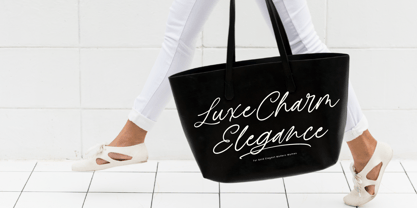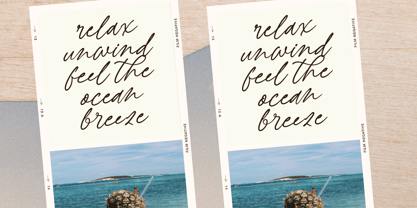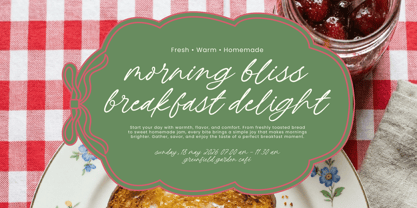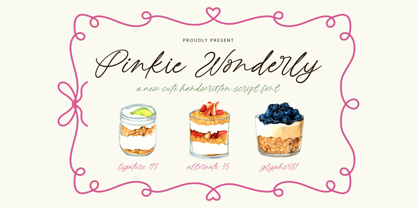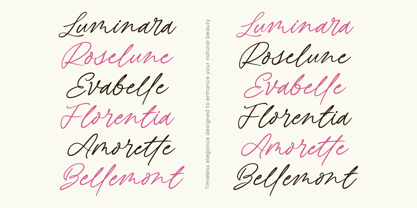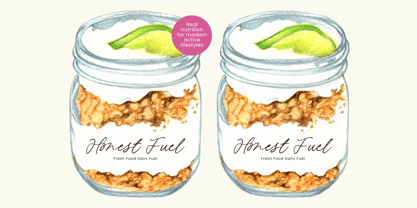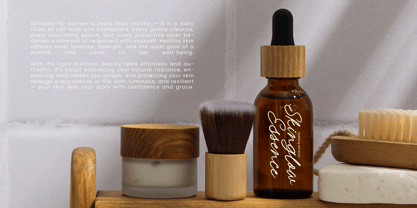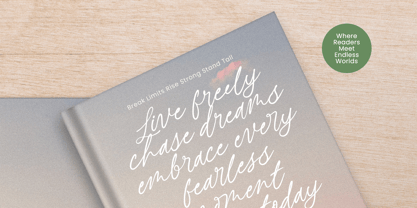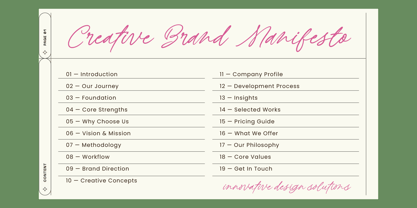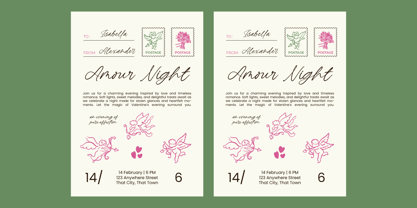
Pinkie Wonderly
by Letterena Studios
The Pinkie Wonderly Font Family was designed by Heru Utama Putra and published by Letterena Studios. Pinkie Wonderly contains 2 styles and family package options. More about this family
Pinkie Wonderly is a sweet and charming handwritten script font designed to bring warmth and personality to your creative projects. With its smooth flowing strokes and delicate curves, this typeface delivers a natural handwritten feel that is both elegant and playful. Perfect for branding, invitations, packaging, logos, bakery labels, social media graphics, wedding stationery, and lifestyle designs, Pinkie Wonderly adds a soft, feminine touch to every composition. Featuring 113 ligatures, 35 alternates, and 481 glyphs, it offers rich typographic flexibility for seamless letter connections and unique stylistic variations. Whether you are designing for print or digital use, Pinkie Wonderly creates a lovely, heartfelt impression that feels personal, stylish, and beautifully handcrafted.